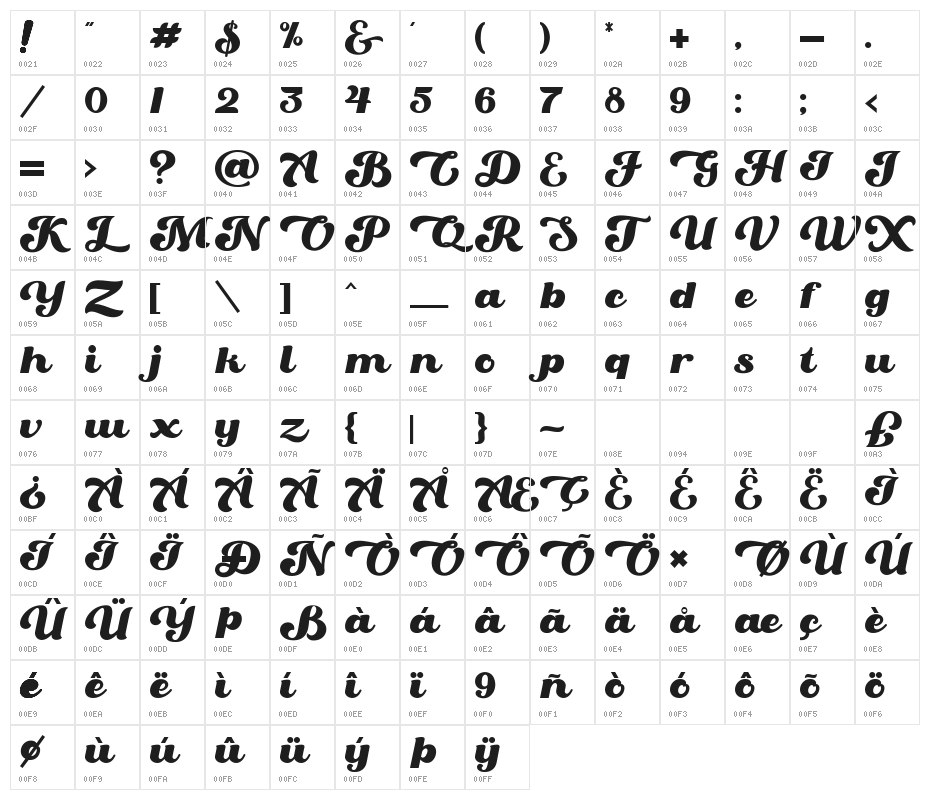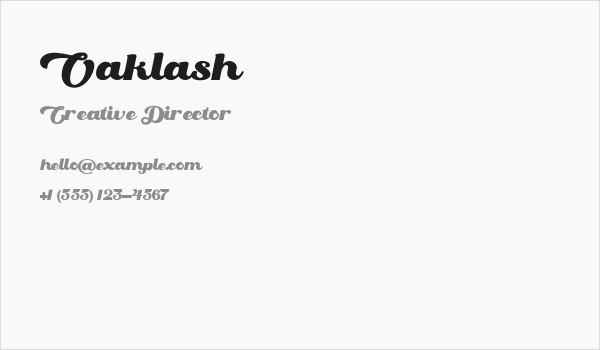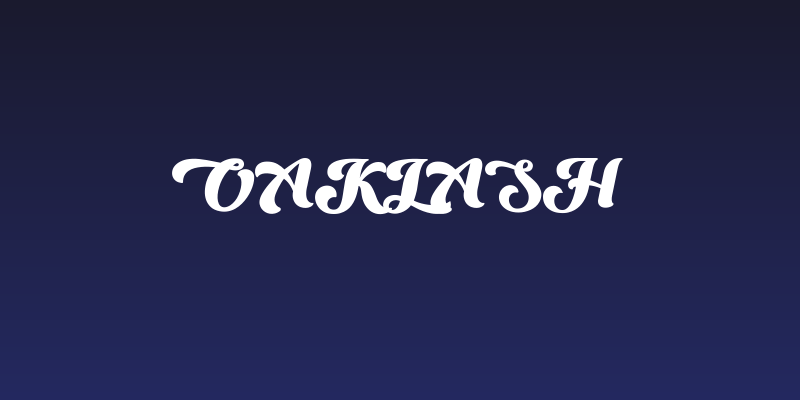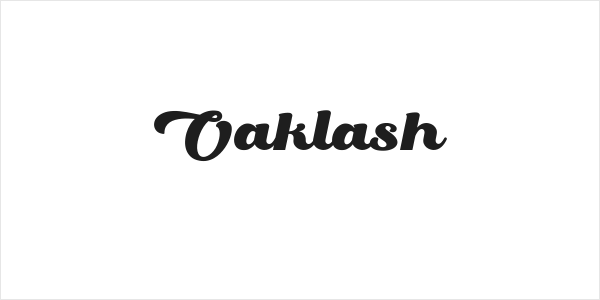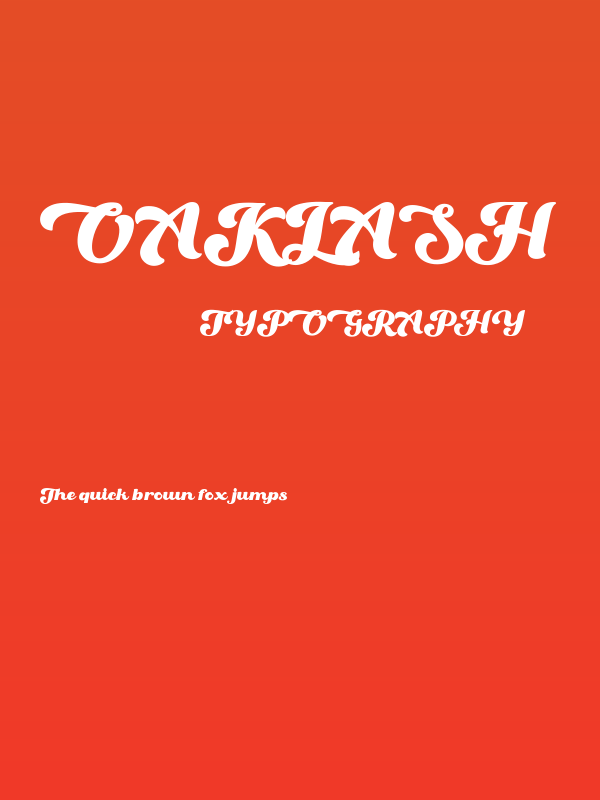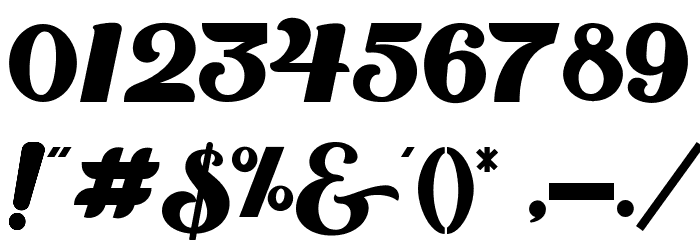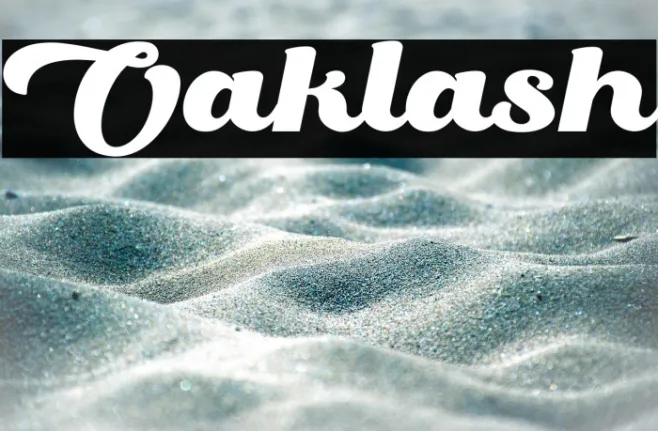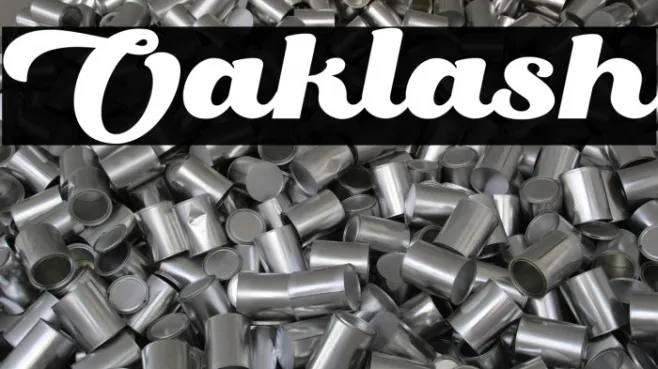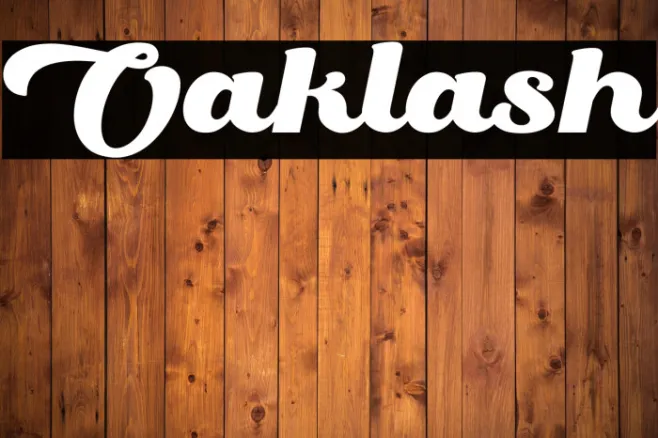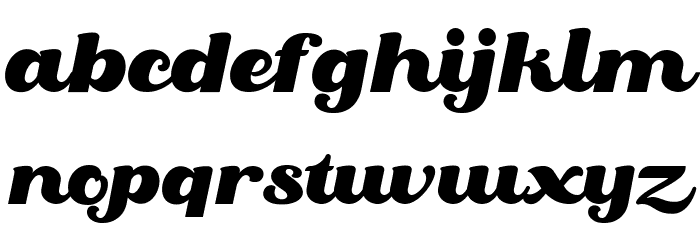
Oaklash Font
Oaklash Description
This font features a bold and dynamic script style with a strong presence. The uppercase letters exhibit a flowing, cursive design with pronounced curves and loops, giving them a sense of elegance and movement. The lowercase letters maintain a cohesive style, with rounded forms and smooth transitions between strokes. The numerals are bold and consistent with the overall aesthetic, ensuring readability while maintaining the decorative flair. Special characters are well-integrated, offering a complete set for versatile use. The font's thick strokes and rounded edges contribute to its bold appearance, making it suitable for impactful designs.
| Proposed Projects | Ideal for branding, logo design, invitations, and headlines where a strong, stylish impact is desired. |